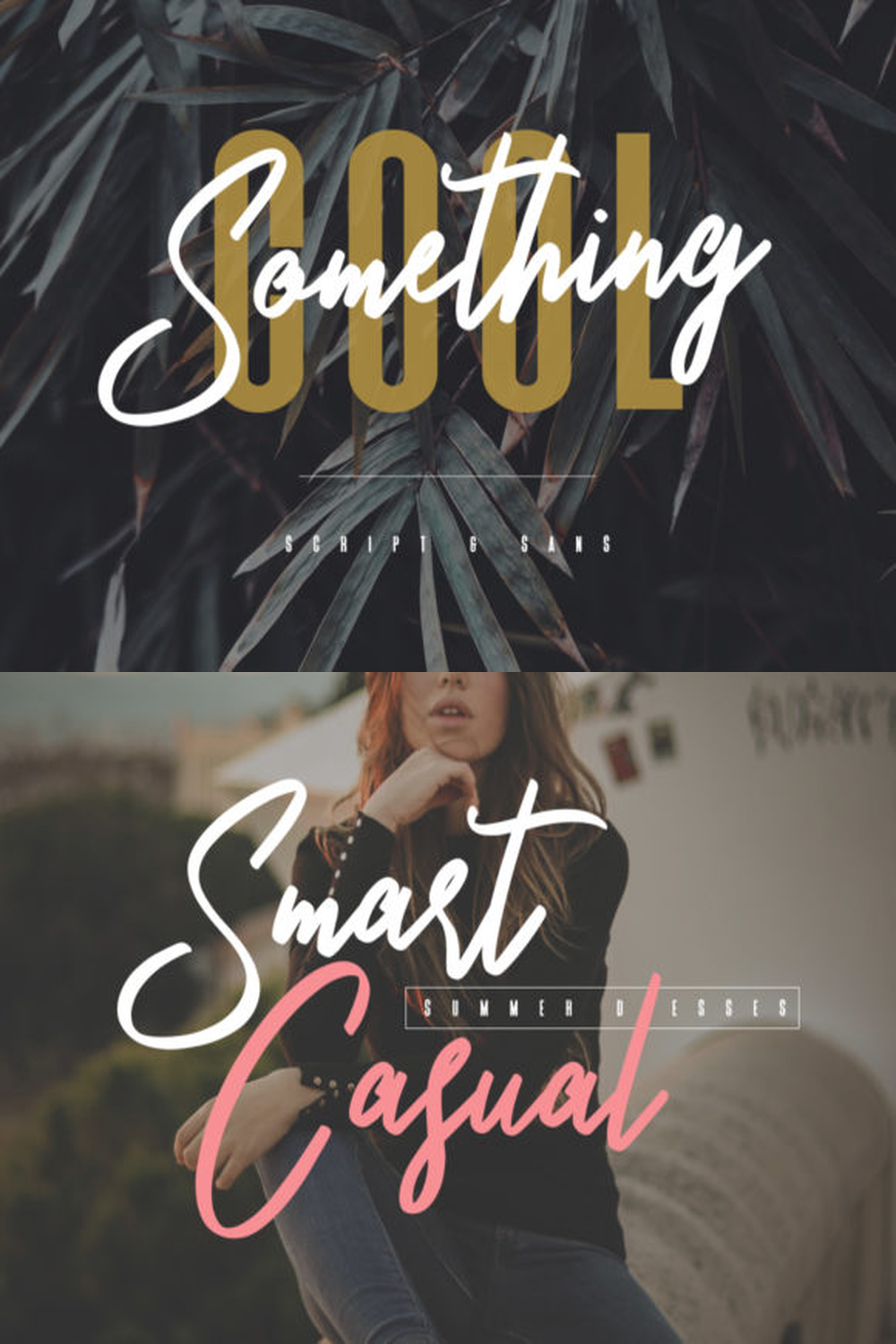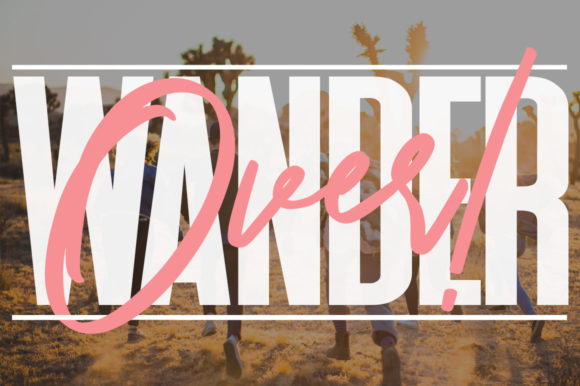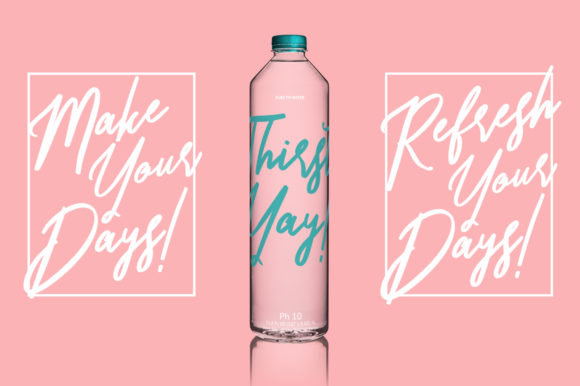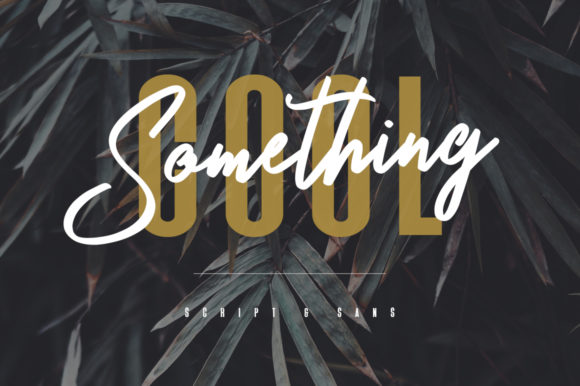
Something Cool Font
About the Something Cool Font
Meet Something Cool Font, a stunning font that brings a touch of elegance and professionalism to any design. Something Cool is a spectacular duo font (sans serif and script). Incredibly versatile, this font fits a wide pool of designs, elevating them to the highest levels. Add this font to your favorite creative ideas and notice how it makes them come alive!
Something Cool Font Usage Examples